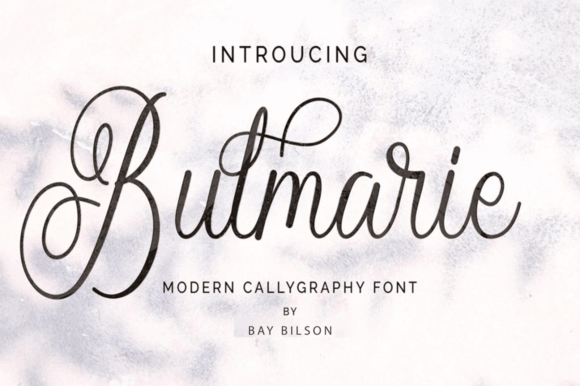
Step into the realm of romance and elegance with Bulmarie Font, a breathtaking script font that will captivate your heart. Feel the passion ignite as your designs come to life with this exquisite creation from Muwatta Studio.
Bulmarie Font is not just a font; it's an emotion, a whisper of love etched in digital ink. Its delicate strokes and well-balanced letters dance across the page, evoking a sense of longing and desire. Whether you're a seasoned designer or just starting your creative journey, Bulmarie Font will unleash your imagination and transport you to a world of beauty.
With its incredibly versatile style, Bulmarie Font adapts seamlessly to a myriad of projects. Weave enchanting tales in your novels, craft heartfelt invitations that speak to the soul, or design captivating logos that leave an unforgettable impression. The possibilities are endless, limited only by the boundaries of your imagination.
Fall in love with the ease of use that Bulmarie Font offers. Its PUA encoding allows you to effortlessly access a treasure trove of glyphs and ligatures, empowering you to add intricate details and flourishes to your designs with a few simple clicks.
Indulge in the romantic allure of Bulmarie Font and elevate your designs to new heights. Let your creativity bloom as you pour your heart and soul into every project, knowing that Bulmarie Font will amplify your message and leave a lasting impact on your audience.